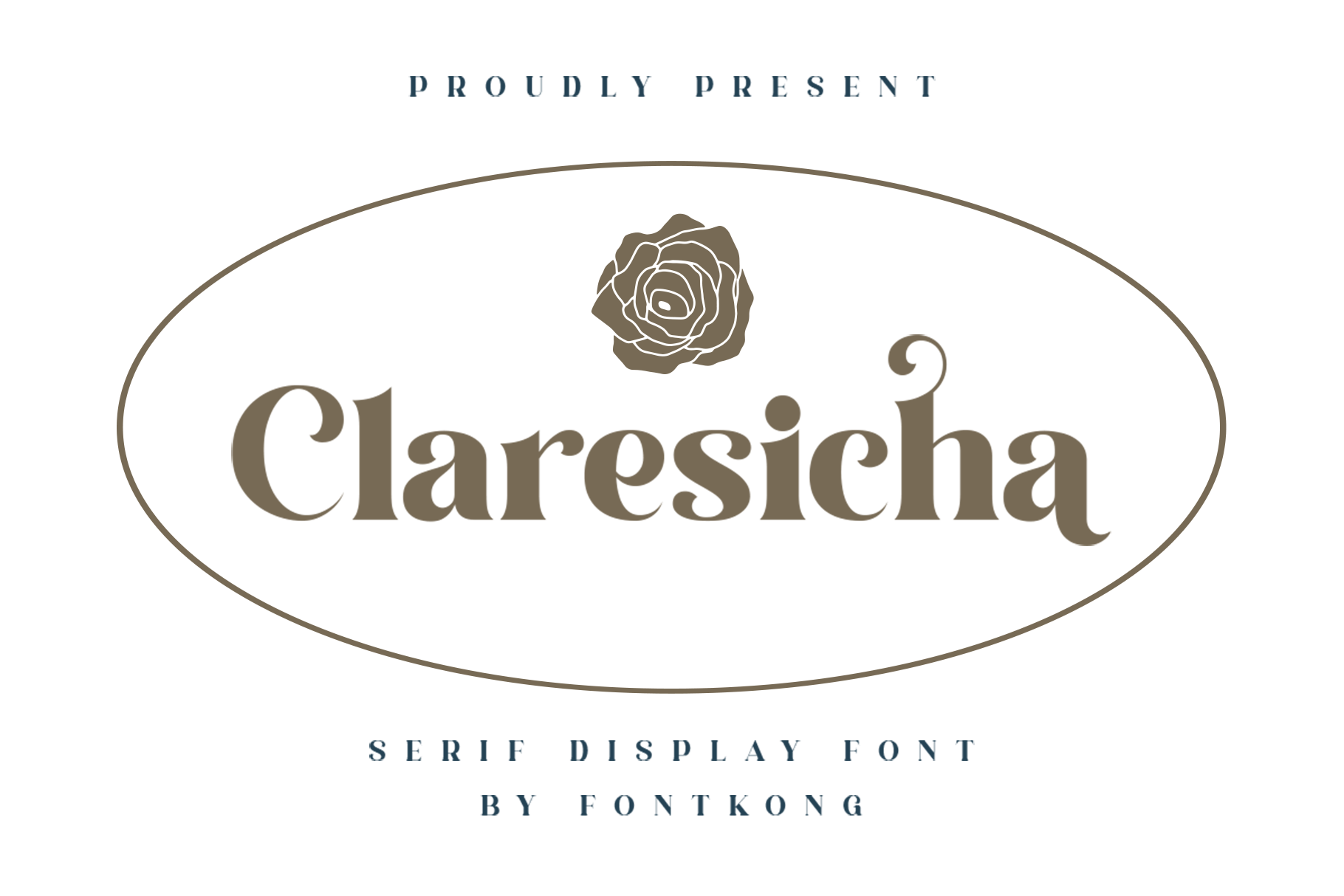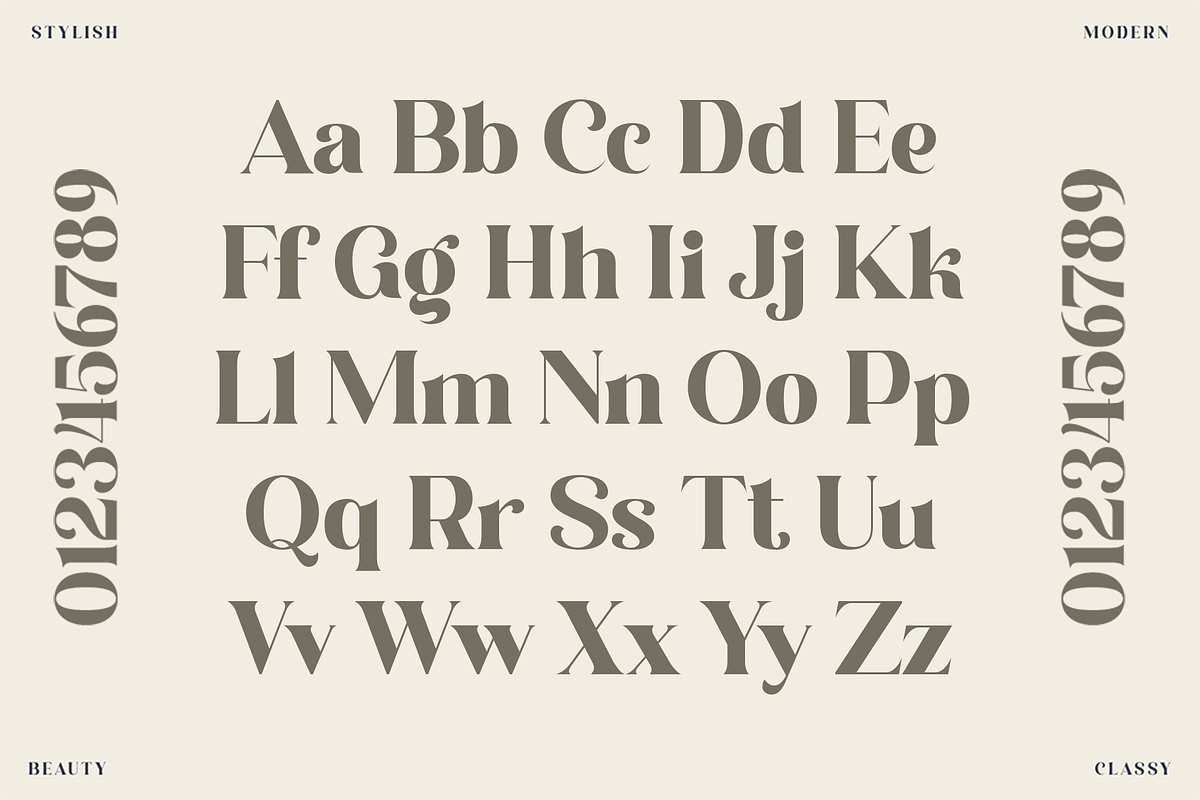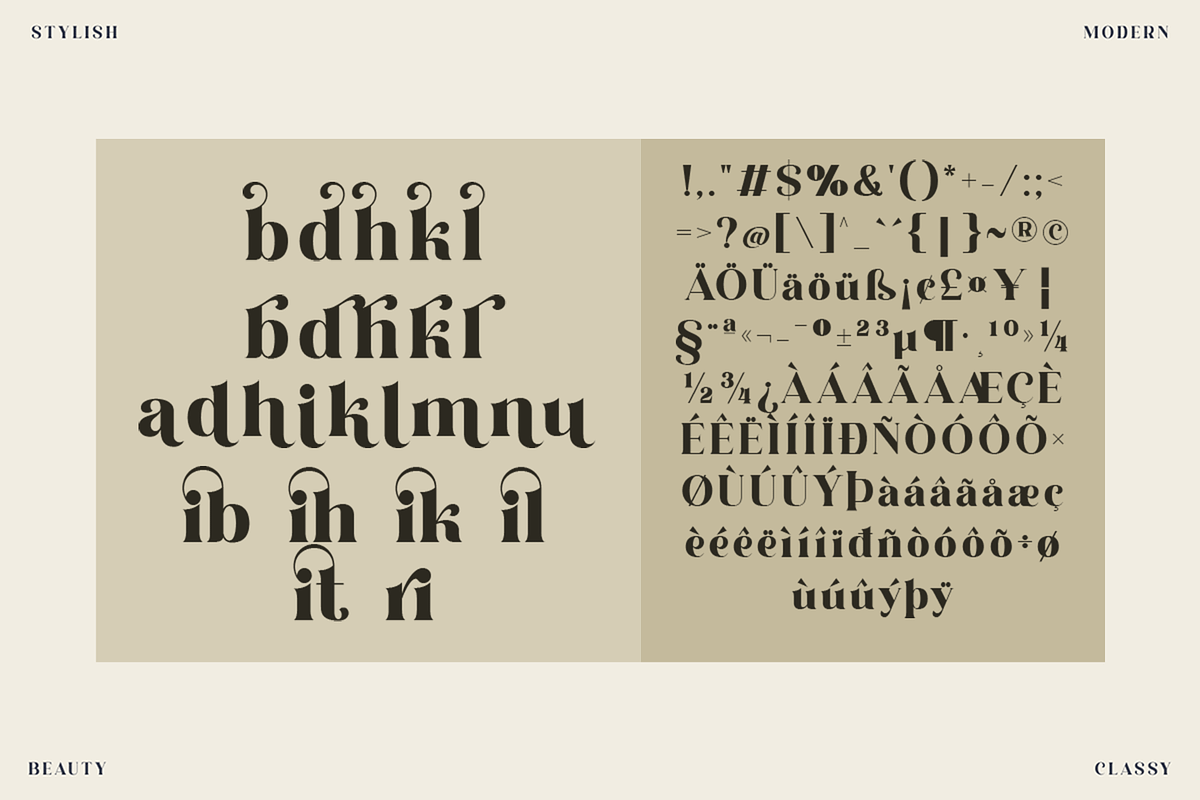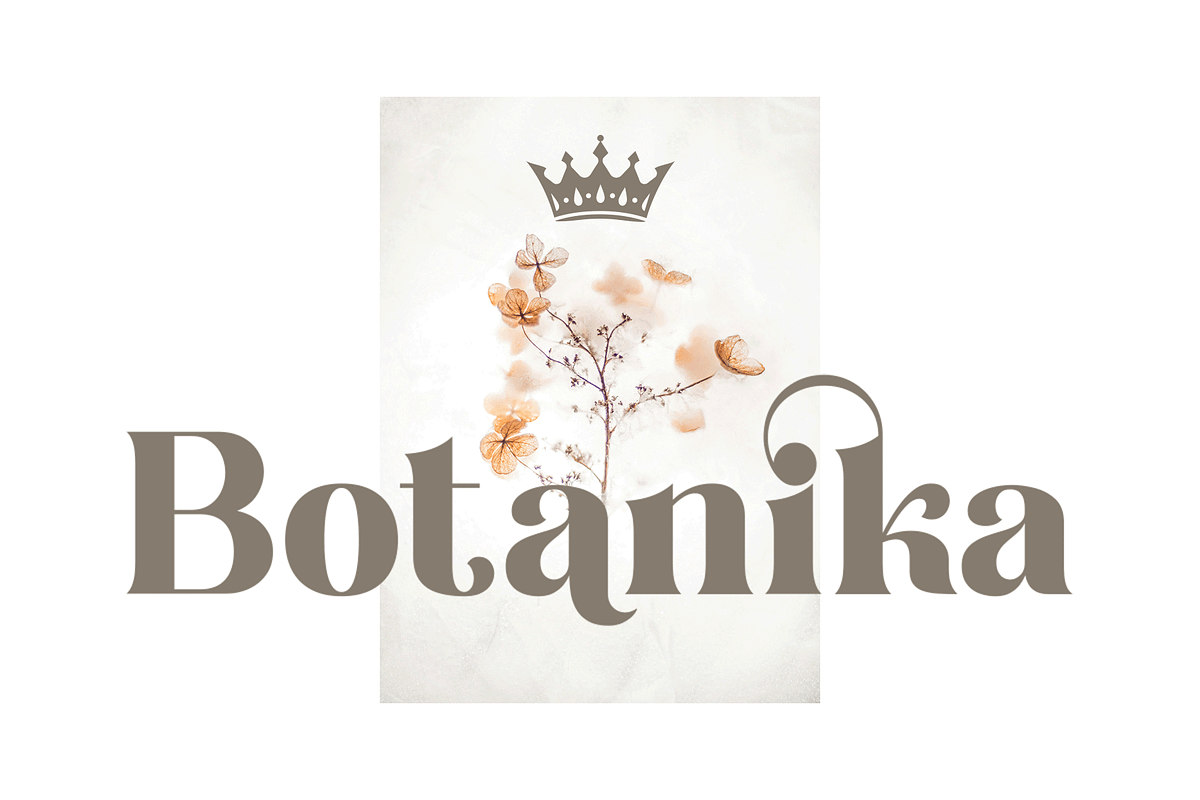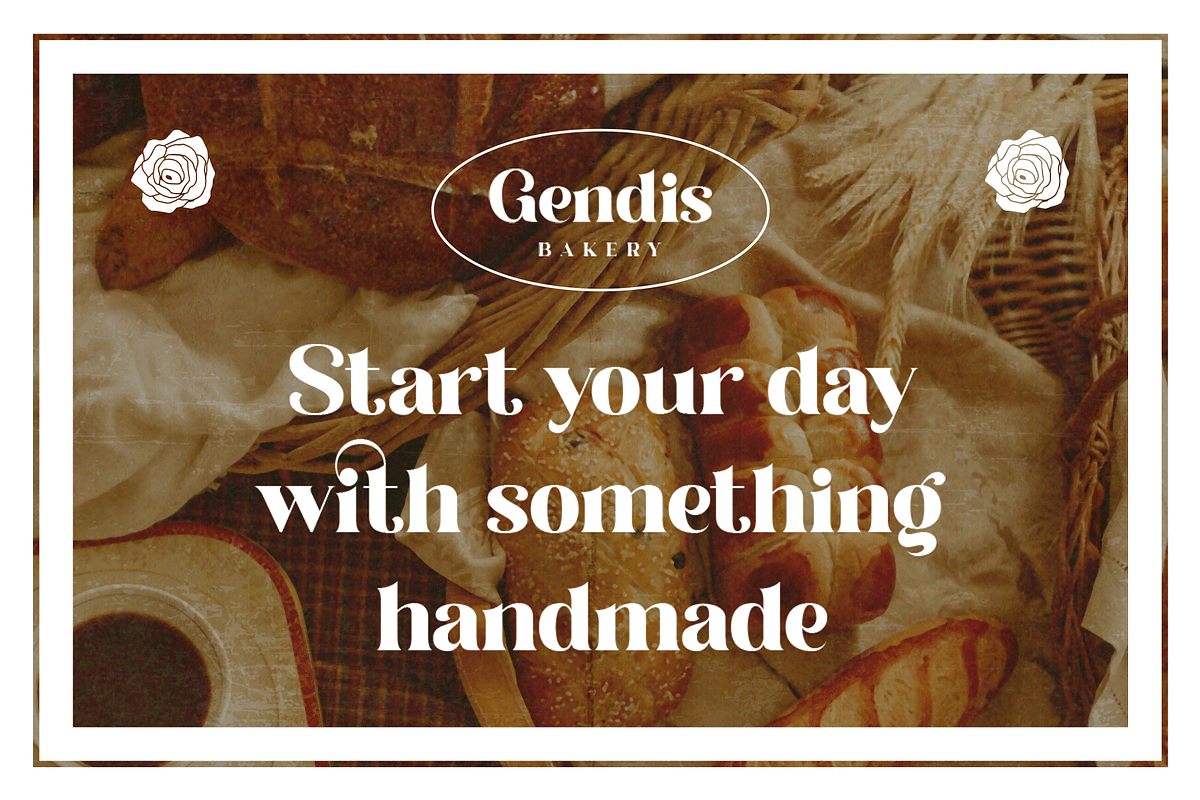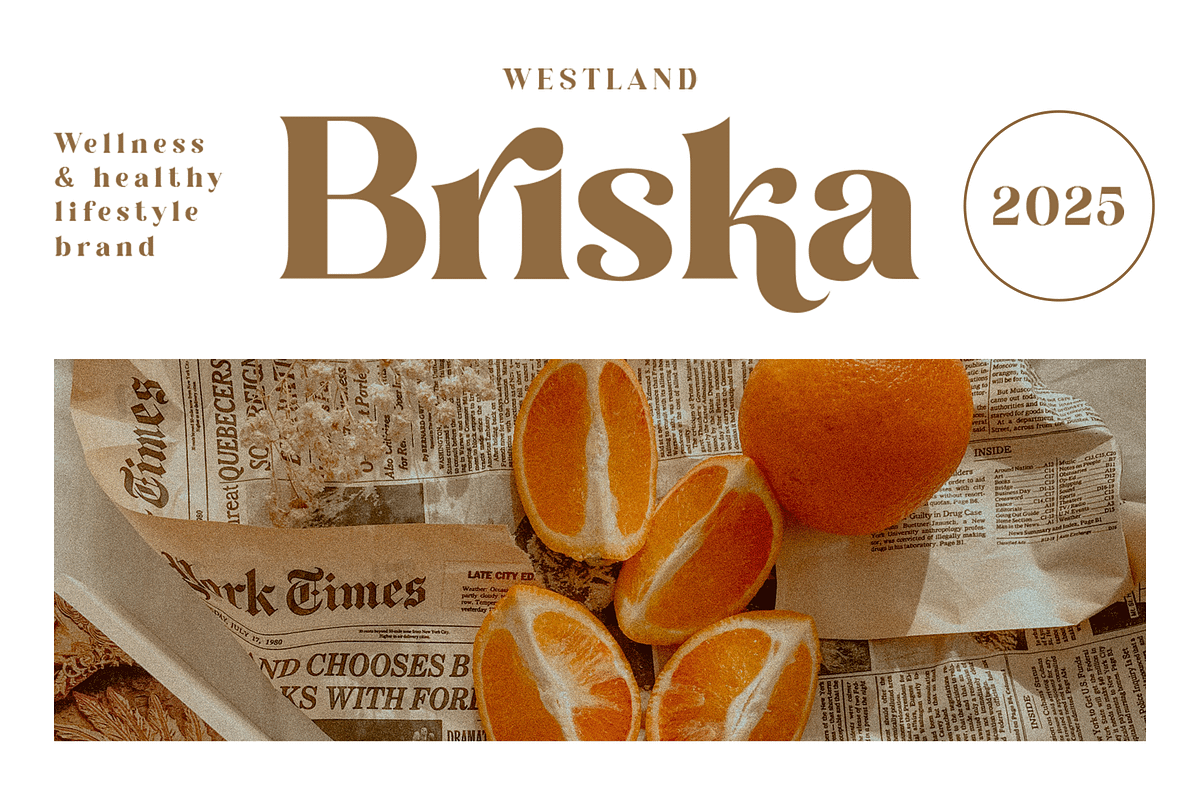
Claresicha - Serif Display Font
Introducing Claresicha, a serif display font crafted to deliver elegance, sophistication, and bold visual character. With its refined serifs, confident strokes, and striking proportions, Claresicha blends classic serif beauty with a contemporary display presence perfect for designs that demand attention without sacrificing grace.
Claresicha includes uppercase and lowercase letters, numerals, punctuation, and multilingual support, offering versatility for both print and digital designs. Whether you're crafting a fashion brand identity, a magazine headline, or an elegant promotional design, Claresicha enhances your work with its sophisticated charm and bold display appeal.
Make every word feel refined and powerful Claresicha is the serif display font designed to stand out beautifully.